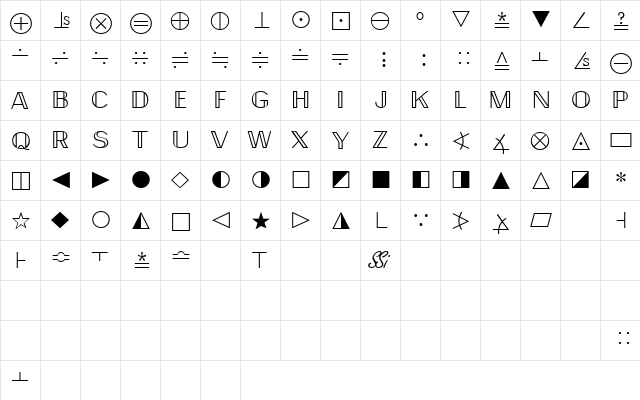
QuantaPiFourSSK Regular
Design Context for QuantaPiFourSSK Typeface
QuantaPiFourSSK takes a measured approach to typography — its balanced proportions and neutral character make it a reliable workhorse for both digital and print work.